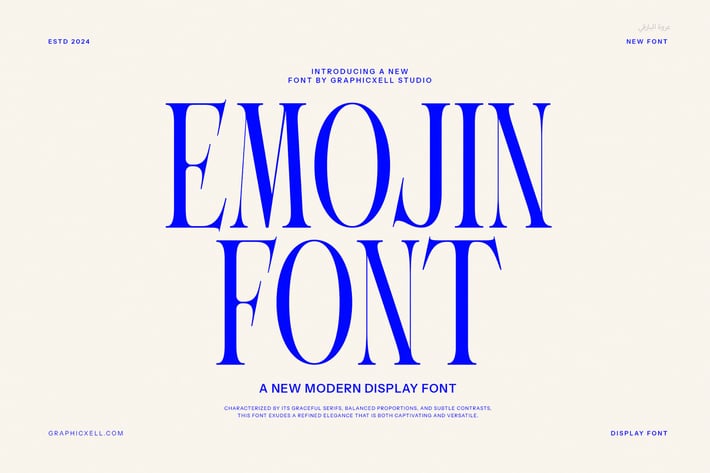
Emojin Vintage Serif Font
Emojin Vintage Serif is a classic retro serif font designed to bring a nostalgic and timeless feel to your projects. This font features strong, well-defined serifs combined with vintage-style details, making it perfect for designs that require a historic or handcrafted look. Because of this, it works wonderfully in branding, packaging, posters, and editorial work.
This font stands out by balancing boldness with elegance. Its vintage charm is evident in the carefully crafted curves and sharp edges, giving your text personality and depth. Additionally, Emojin Vintage Serif maintains excellent readability, making it suitable for both headlines and body text.
Furthermore, Emojin Vintage Serif offers multiple weights, allowing designers to explore creative combinations. You can use heavier weights for impactful titles and lighter ones for supporting text. This versatility helps maintain consistency across print and digital projects.
Key features and uses of Emojin Vintage Serif include:
- Retro-inspired serif design with classic details
- Multiple weights for diverse design needs
- Ideal for logos, posters, packaging, and branding
- Clear and readable in print and digital formats
- Adds a nostalgic and handcrafted feel to projects
Moreover, Emojin Vintage Serif enhances your designs by adding warmth and character. It suits a variety of creative applications, from vintage-themed branding to editorial layouts that need a traditional touch. Plus, its classic style adapts well to modern design trends.
In summary, Emojin Vintage Serif is a versatile serif font that combines vintage aesthetics with modern usability. It helps you create memorable and stylish designs while ensuring clarity. Whether you work on packaging, branding, or editorial content, this font delivers both charm and professionalism.
This font stands out by balancing boldness with elegance. Its vintage charm is evident in the carefully crafted curves and sharp edges, giving your text personality and depth. Additionally, Emojin Vintage Serif maintains excellent readability, making it suitable for both headlines and body text.
Furthermore, Emojin Vintage Serif offers multiple weights, allowing designers to explore creative combinations. You can use heavier weights for impactful titles and lighter ones for supporting text. This versatility helps maintain consistency across print and digital projects.
Key features and uses of Emojin Vintage Serif include:
- Retro-inspired serif design with classic details
- Multiple weights for diverse design needs
- Ideal for logos, posters, packaging, and branding
- Clear and readable in print and digital formats
- Adds a nostalgic and handcrafted feel to projects
Moreover, Emojin Vintage Serif enhances your designs by adding warmth and character. It suits a variety of creative applications, from vintage-themed branding to editorial layouts that need a traditional touch. Plus, its classic style adapts well to modern design trends.
In summary, Emojin Vintage Serif is a versatile serif font that combines vintage aesthetics with modern usability. It helps you create memorable and stylish designs while ensuring clarity. Whether you work on packaging, branding, or editorial content, this font delivers both charm and professionalism.